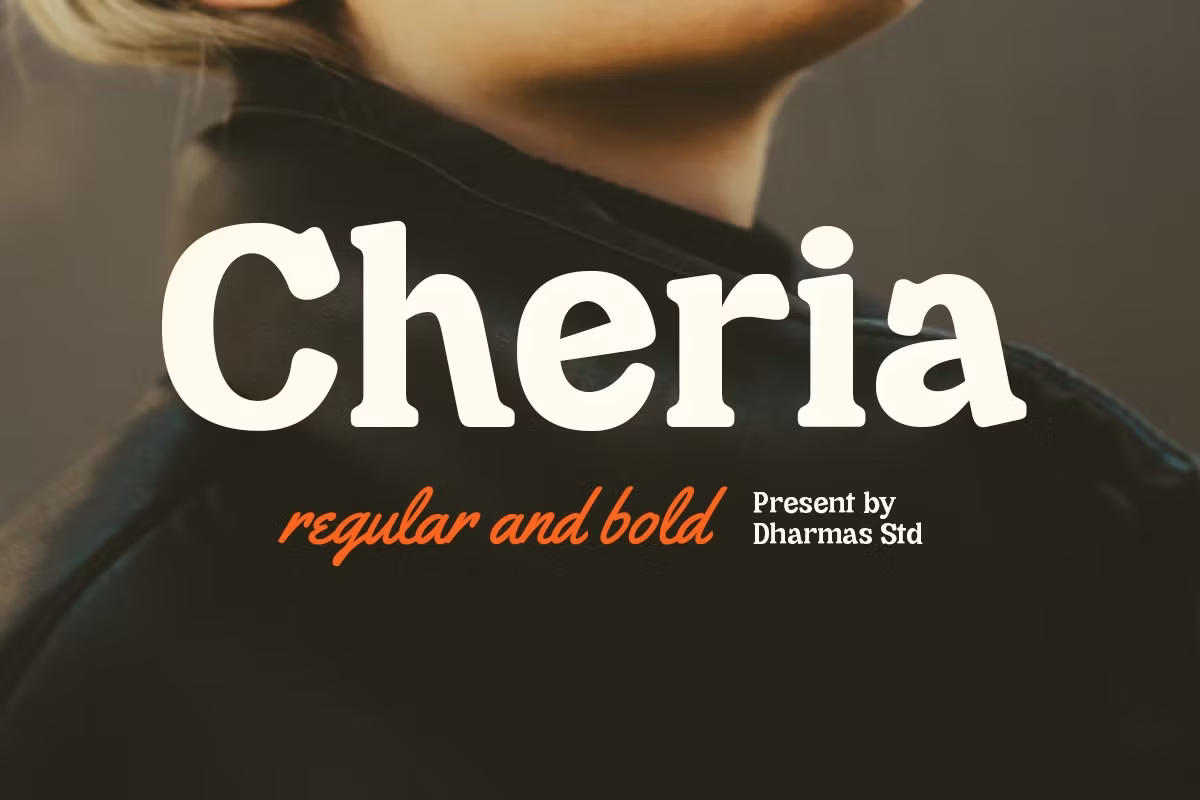
Cheria - Humanist Retro Font Free Download
Cheria – Humanist Retro Font Free Download
Cheria – Humanist Retro Font Free Download is a charming and expressive typeface that blends classic retro aesthetics with the warmth and readability of humanist design. Featuring smooth curves, soft terminals, and a nostalgic vibe, Cheria is perfect for vintage branding, editorial titles, posters, packaging, and creative projects that aim to capture a timeless, approachable feel.
Its retro-inspired personality shines in bold headlines, while its humanist structure ensures legibility across all formats. Cheria – Humanist Retro Font Free Download is ideal for both print and digital use, offering a balanced mix of style and function.